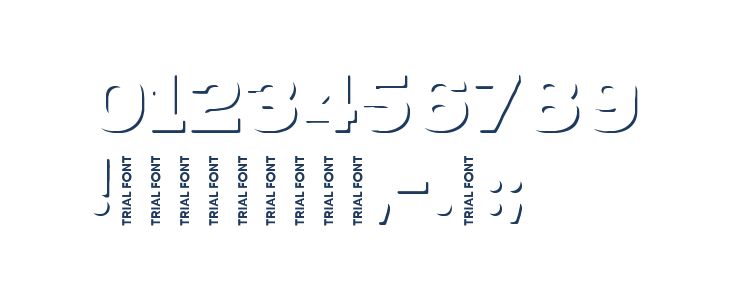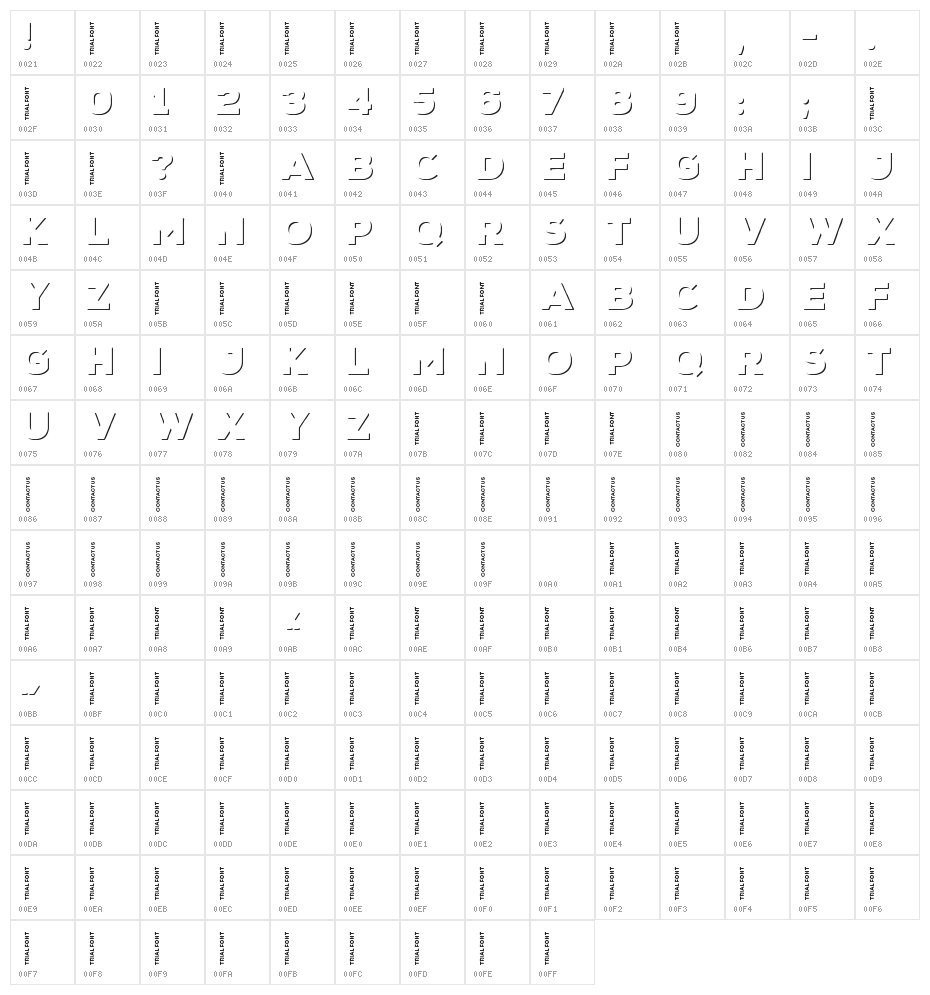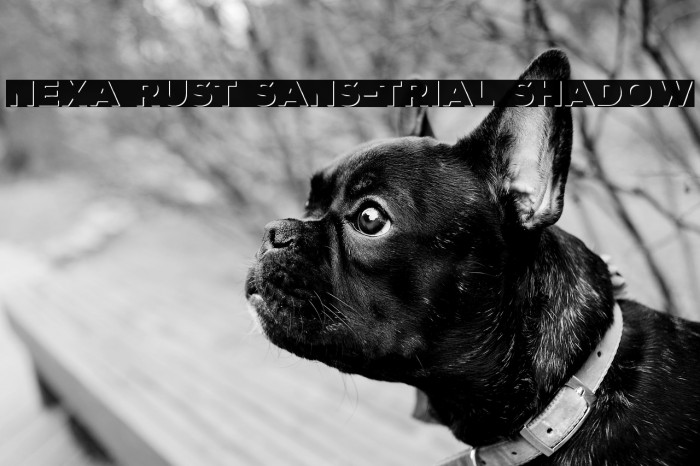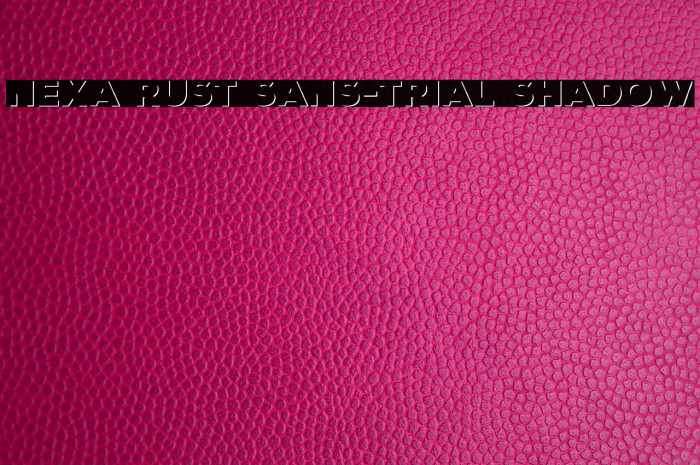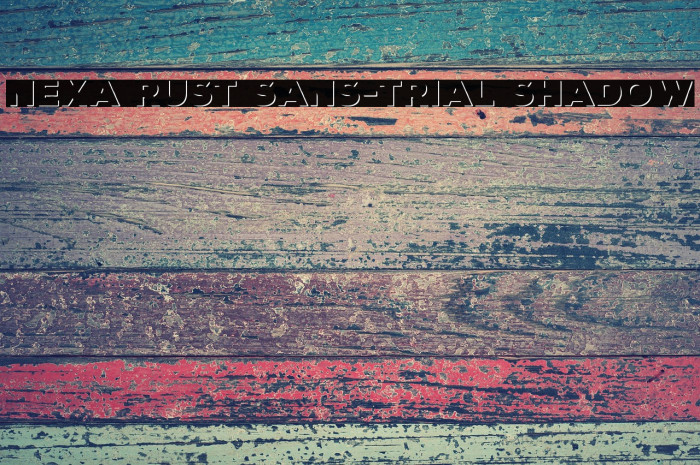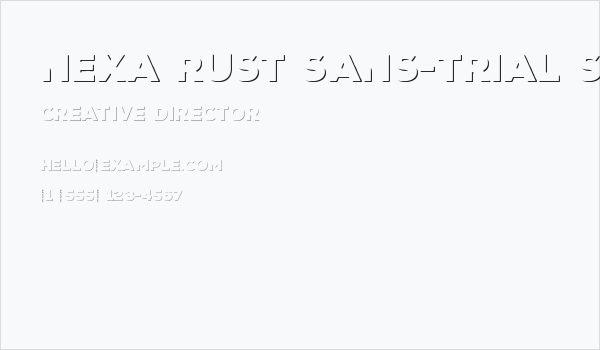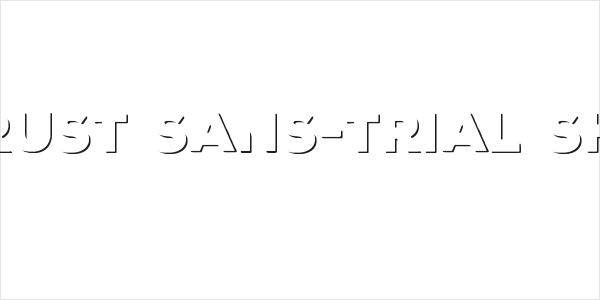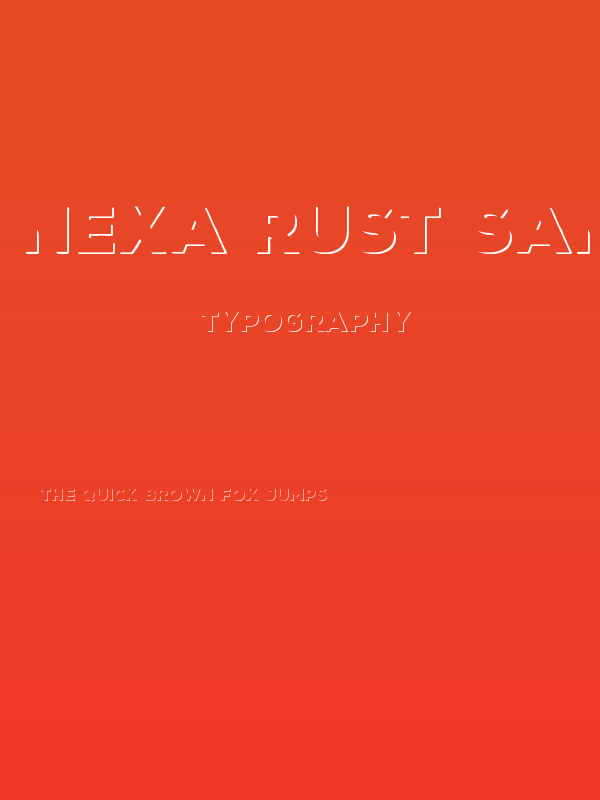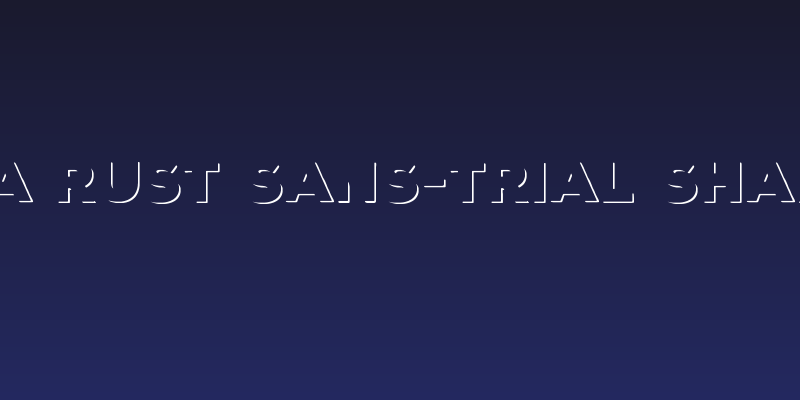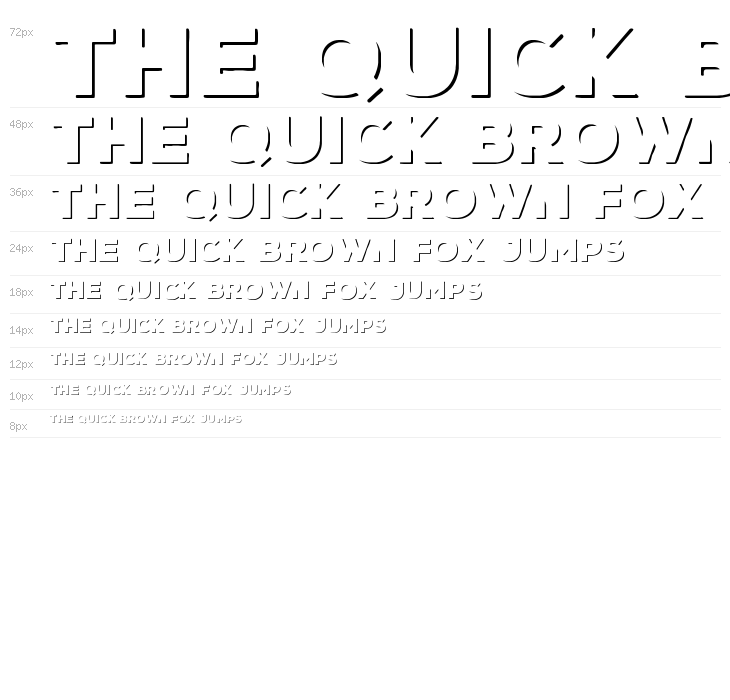
Nexa Rust Sans-Trial Shadow Font
Nexa Rust Sans-Trial Shadow Description
This font features a bold, geometric sans-serif style with a distinct shadow effect that adds depth and dimension to each character. The uppercase and lowercase letters are designed with clean lines and sharp angles, creating a modern and industrial feel. The numbers and special characters maintain this aesthetic, ensuring consistency across all glyphs. The shadow effect is prominent, giving the font a unique three-dimensional appearance that stands out in any design. Its boldness and structure make it suitable for impactful headlines and attention-grabbing designs.